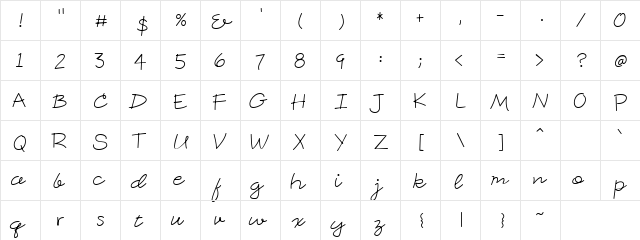
CK Signature Regular
Design Context for CK Signature Typeface
CK Signature offers clean, dependable letterforms without strong stylistic allegiance, making it a practical choice for designers who need flexibility.